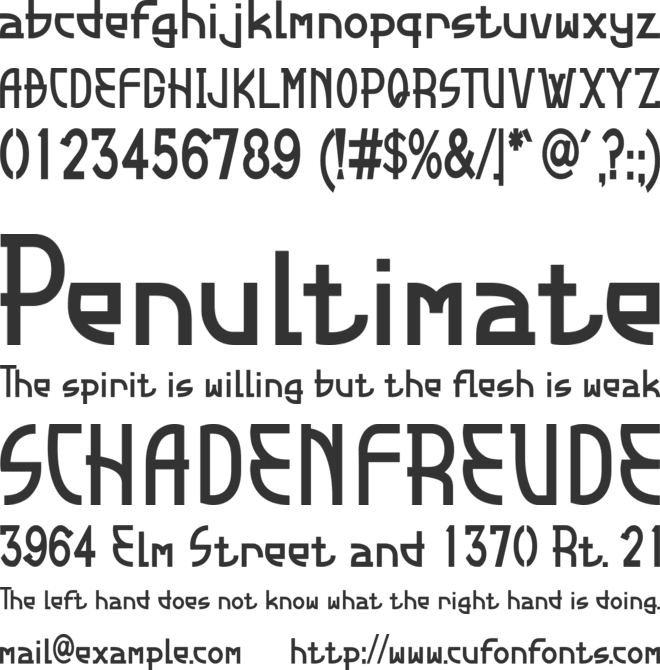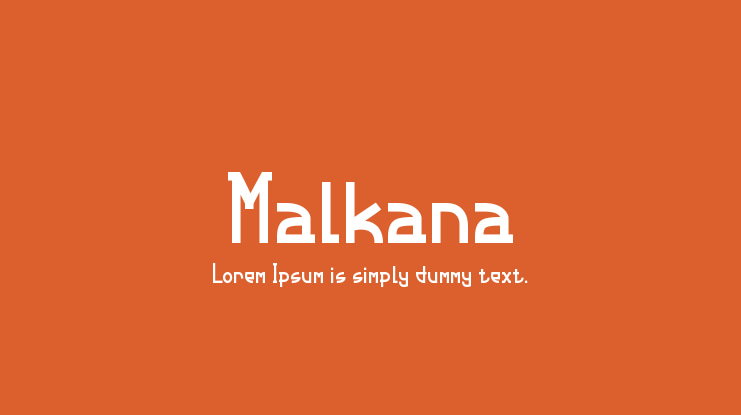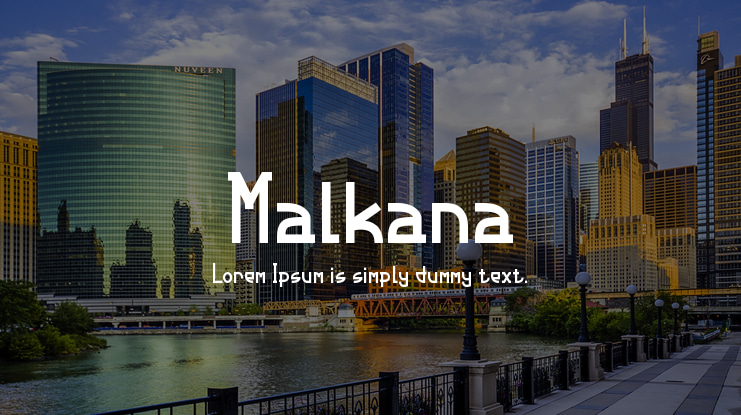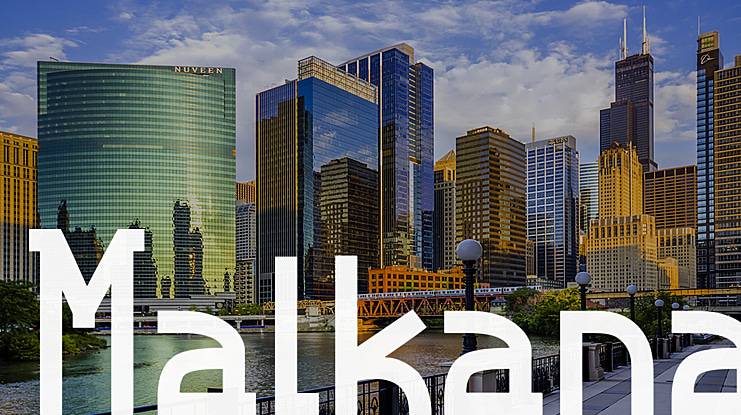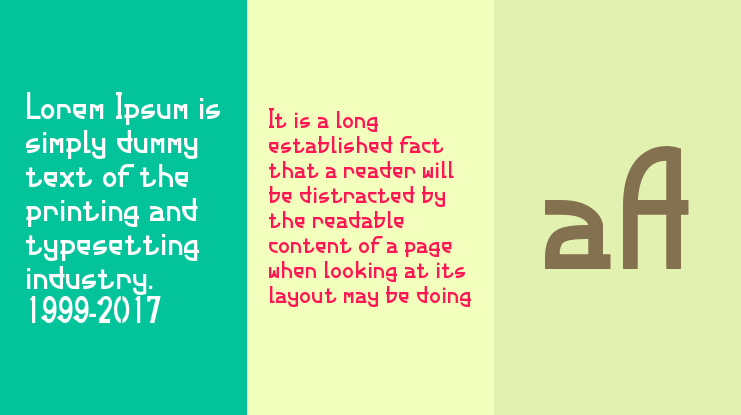
Malkana Font
Malkana is stylish and modern. This beautiful font offers your personal touch to your latest art project with an elegant, classy and modern look.